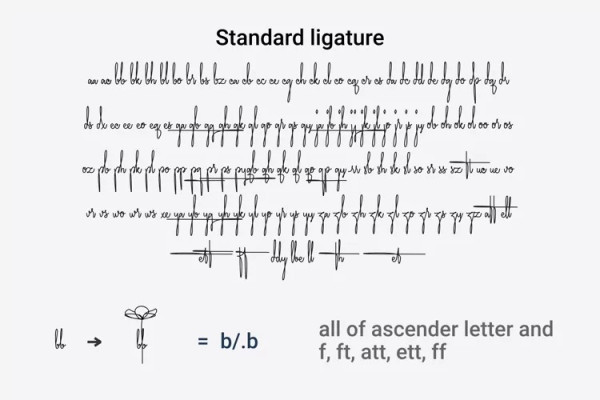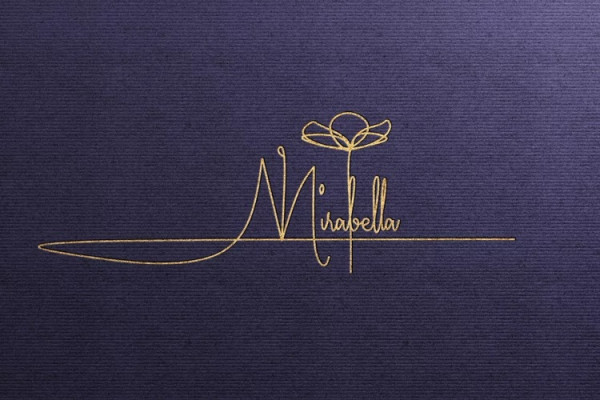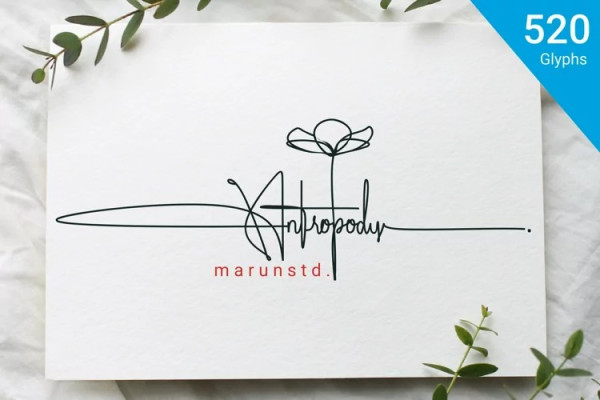
Antropody Font
Antropody Font is a unique signature font, crafted with care to function like human handwriting. with more than 520 glyphs that can be used for business purposes, branding and logos, signatures, product packaging, titles, body text, invitations, stationery, advertisements, and more.